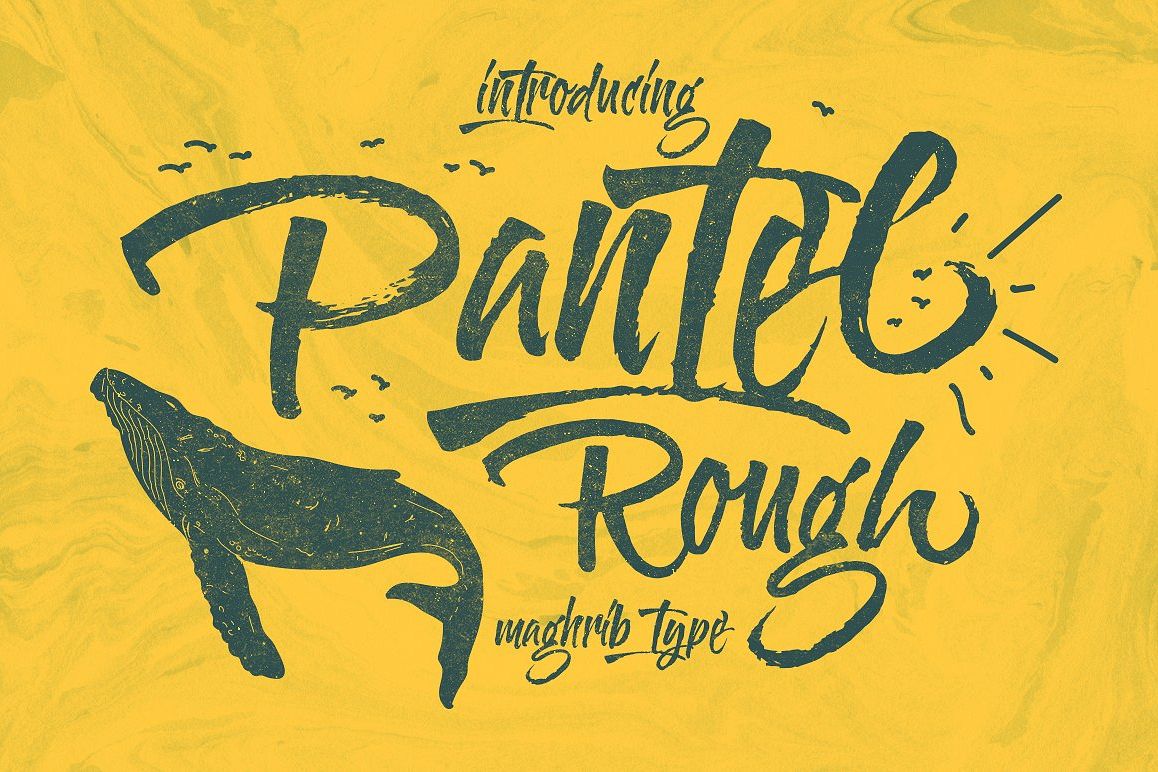
Created By maghrib
Pantel Rough
Pantel Rough type is hand painted typeface designed to help you create the look of stunning custom hand-lettering. Pantel Rough type comes with upper and lowercase characters, punctuation, numerals. Pantel Rough type is very best choice fonts for : ,quotes, Posters, Logos, Print Ads, Digital Ads, Promotion Product, video bumper, etc.Stylistic alternates for key lower case characters are also available, accessible in the Adobe Illustrator Glyphs panel, or under Stylistic Alternates in the Adobe Photoshop OpenType menu.